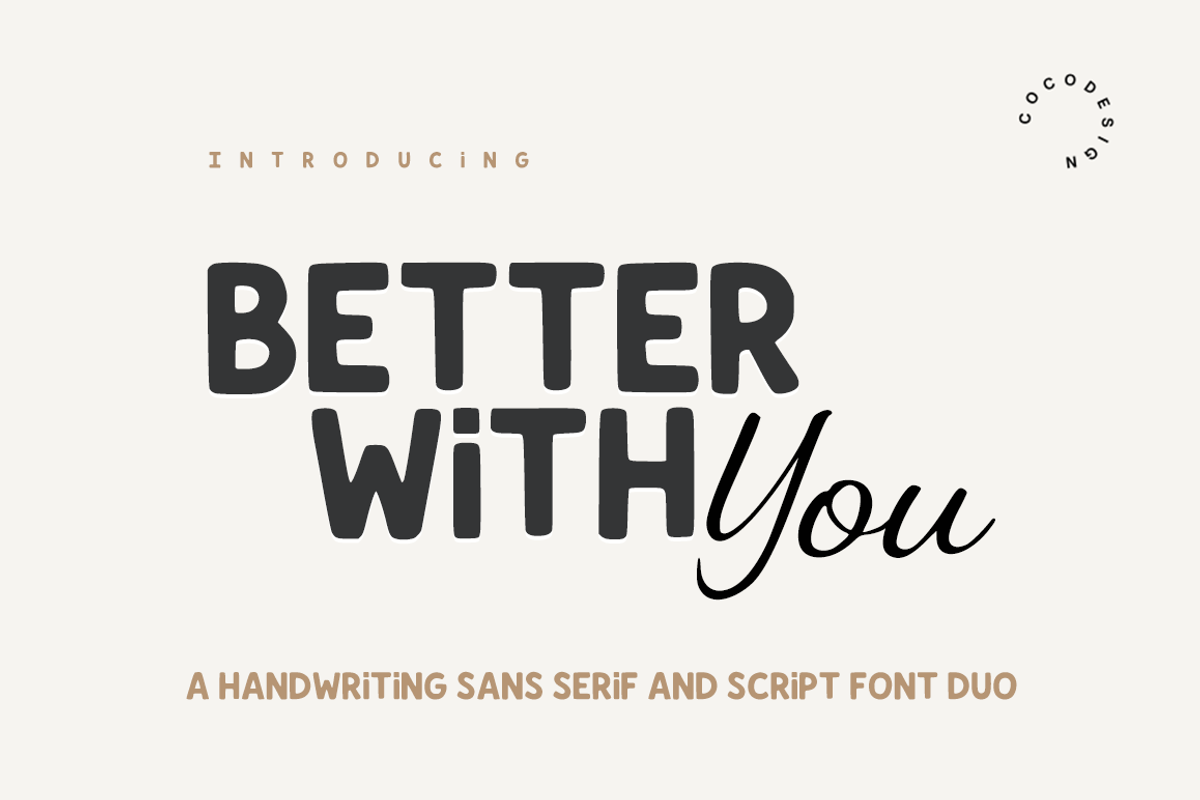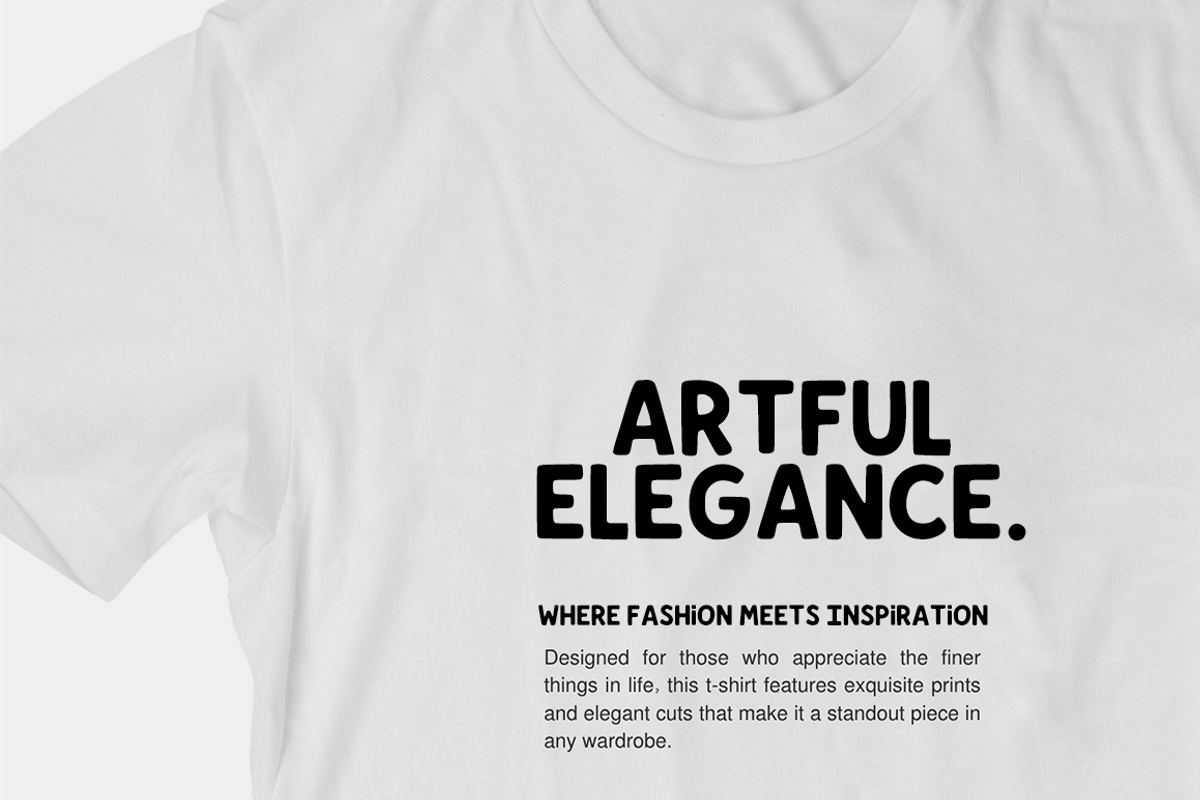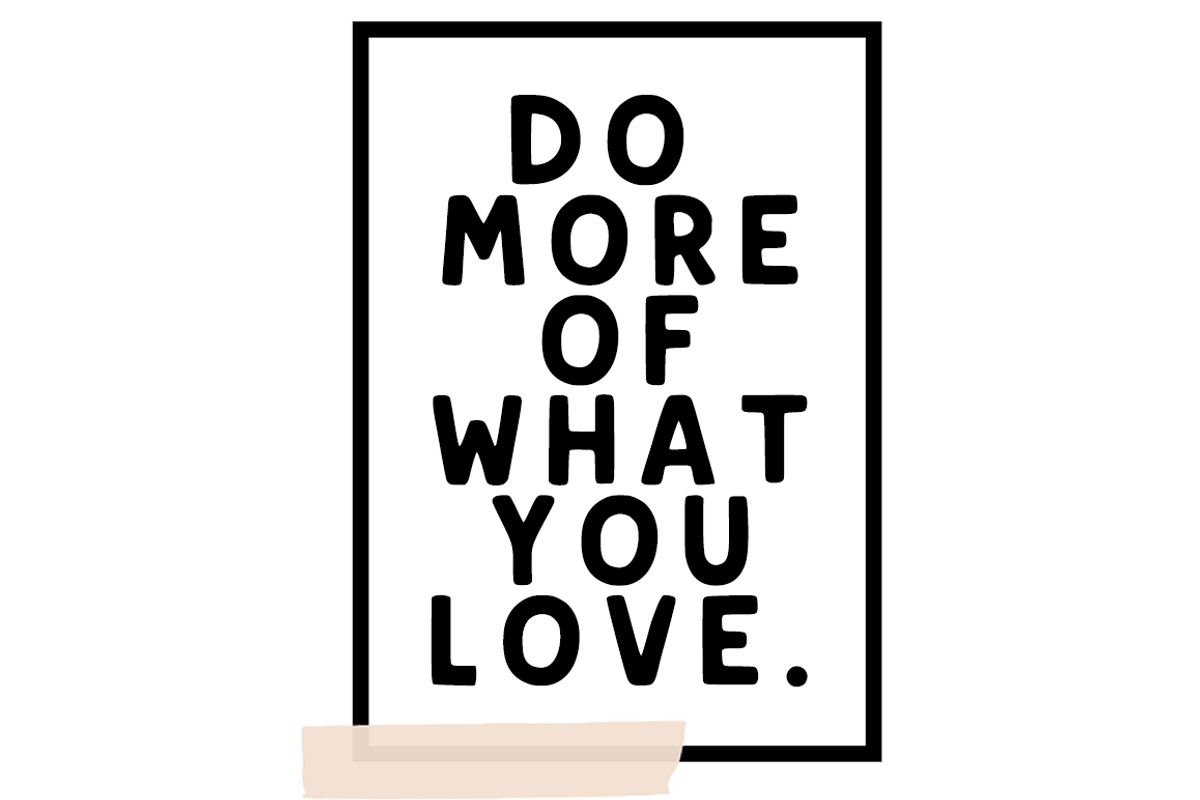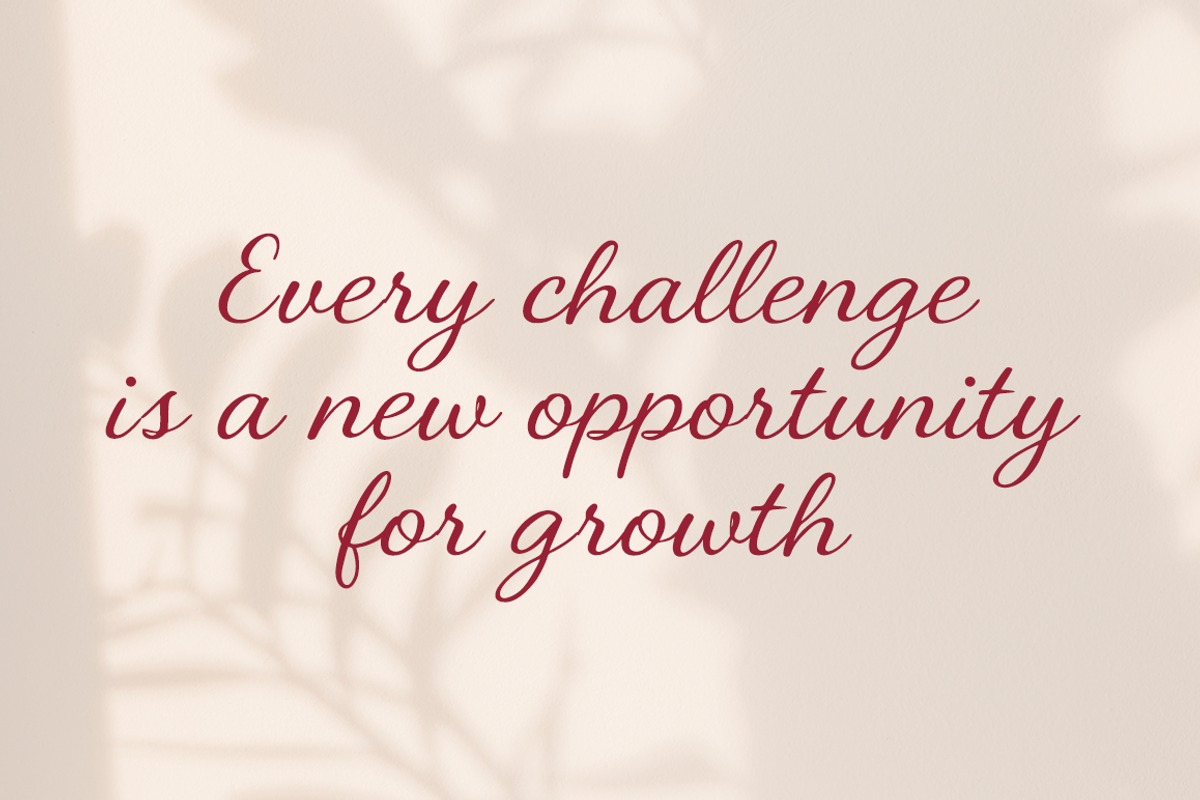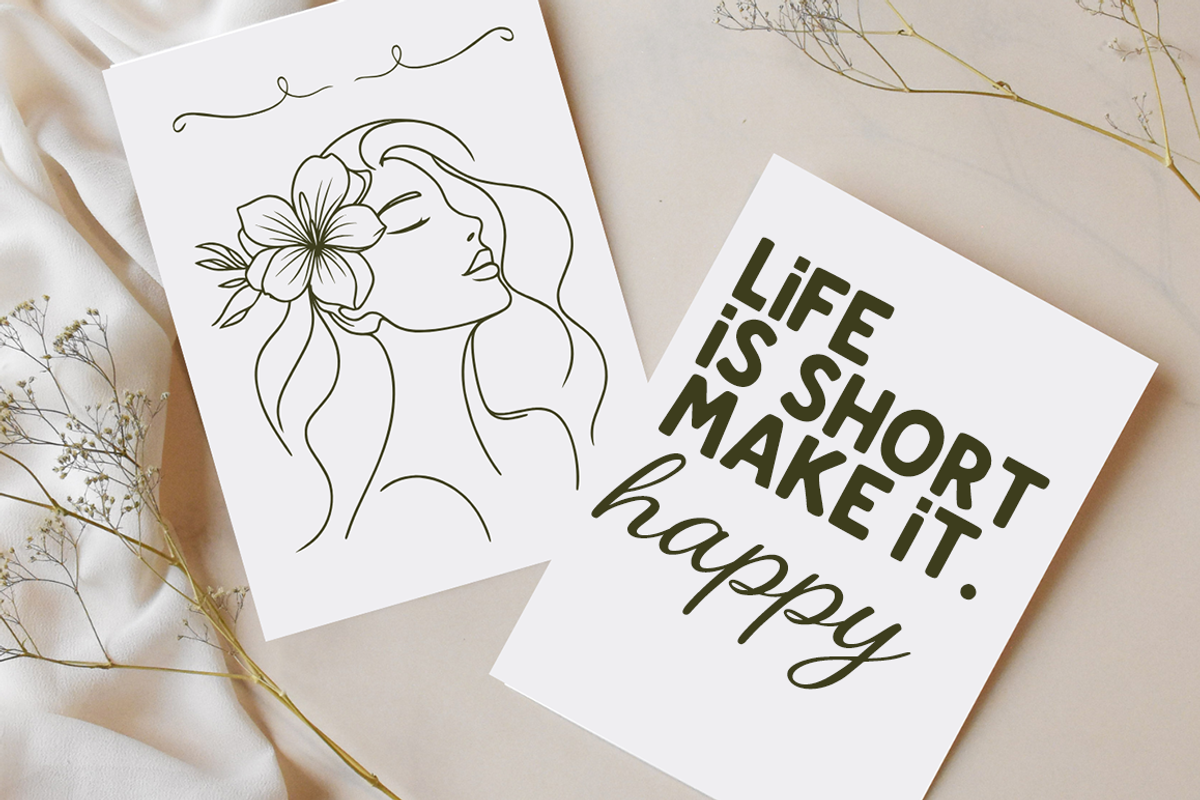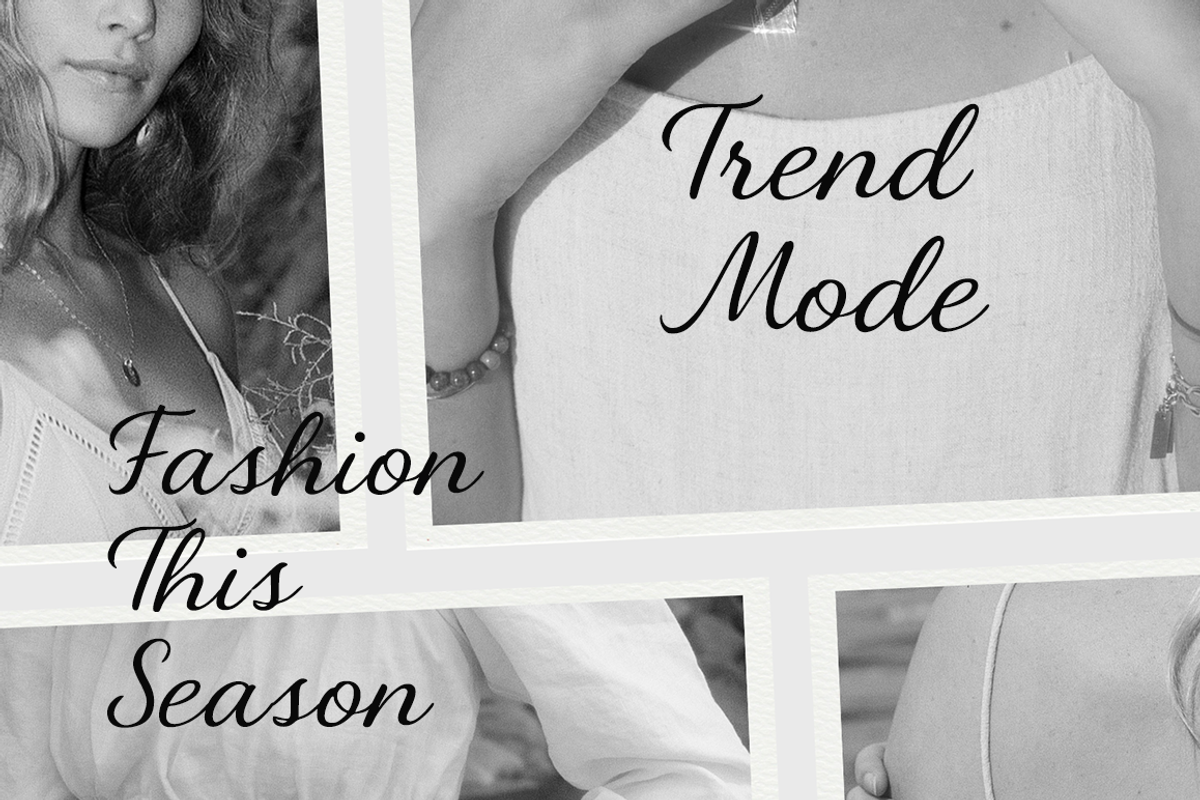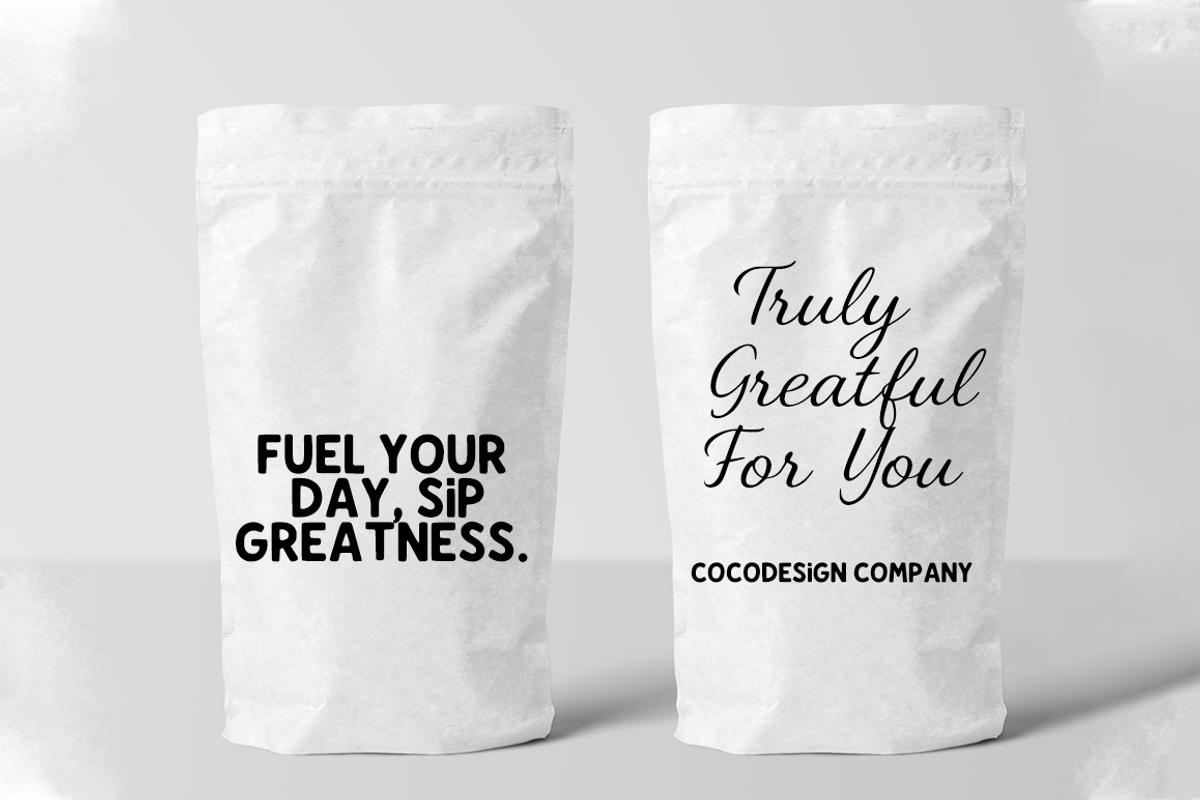
Better with you
Better With You is a versatile font duo that blends the warmth of handwriting with a modern touch. It comes in two contrasting yet perfectly harmonious styles:
✅ Sans Serif Handwriting – bold uppercase letters with a relaxed, clean, and playful look. Perfect for headlines, logos, and designs that need a confident yet friendly feel.
✅ Script Handwriting – smooth, natural strokes that feel like real handwriting—feminine and elegant. Ideal for signatures, quotes, invitations, and creative projects.